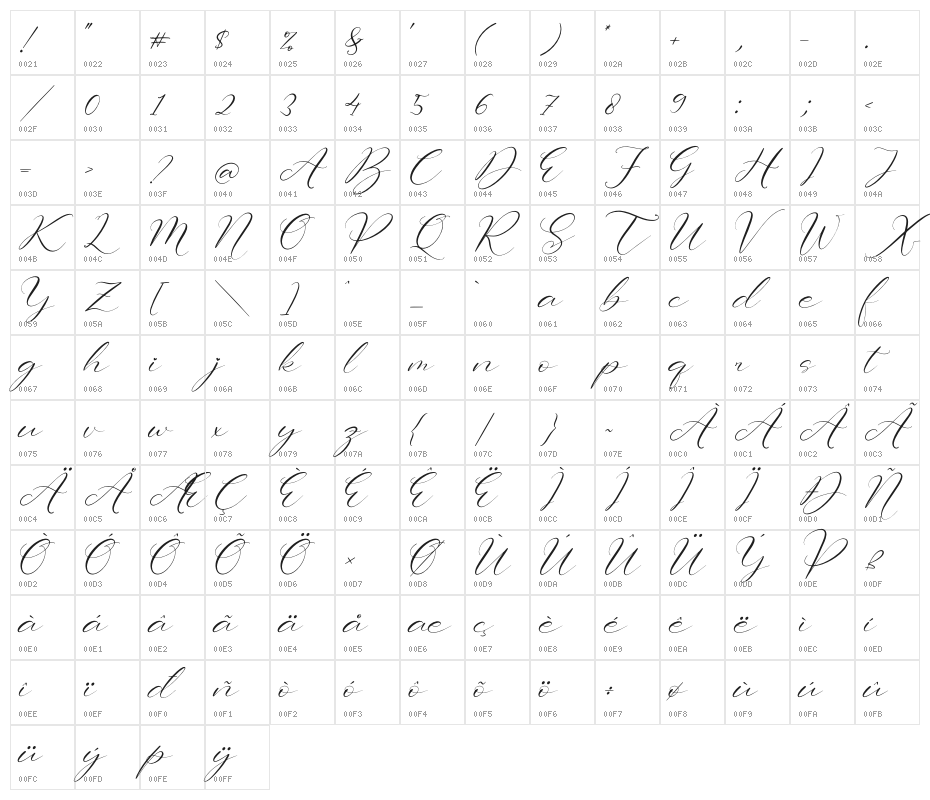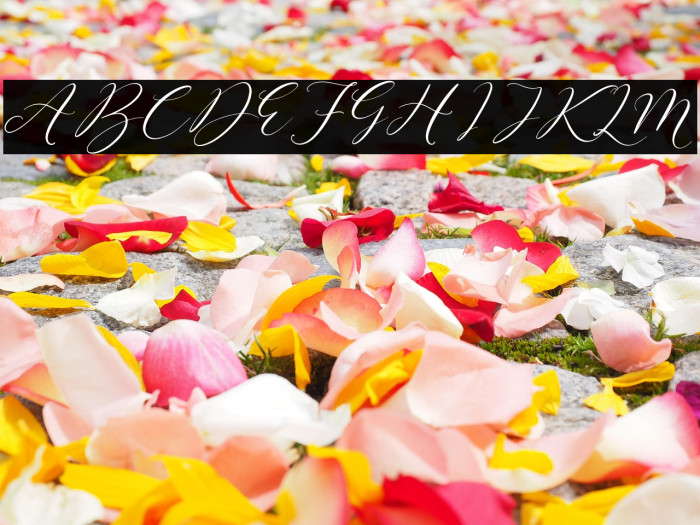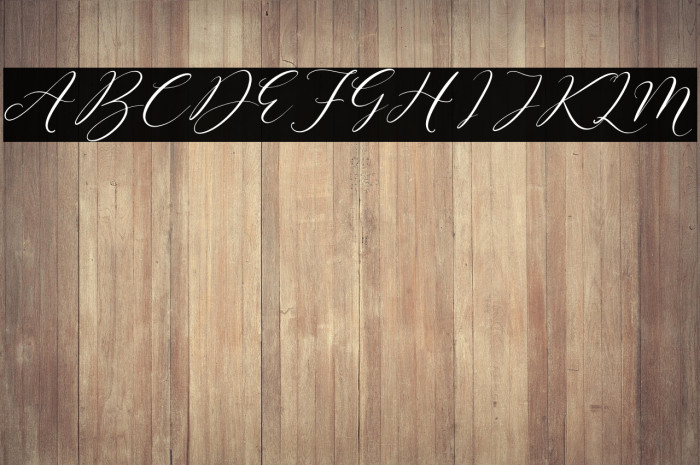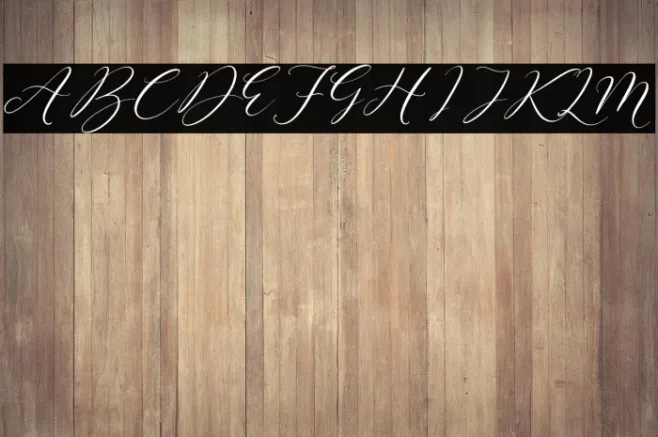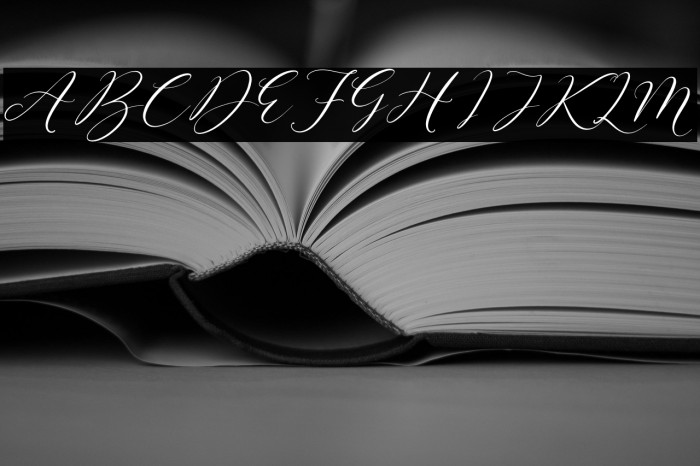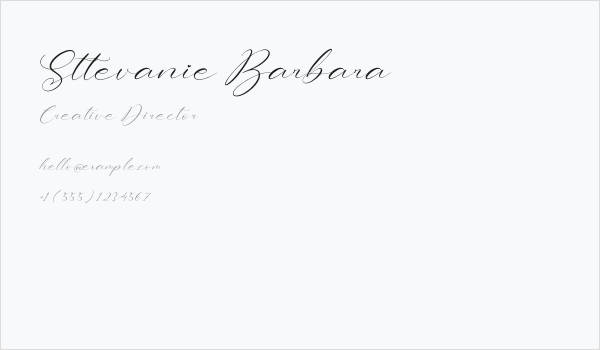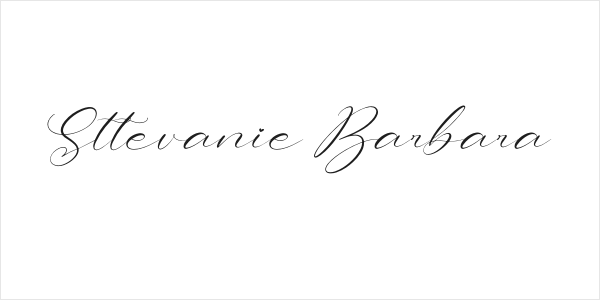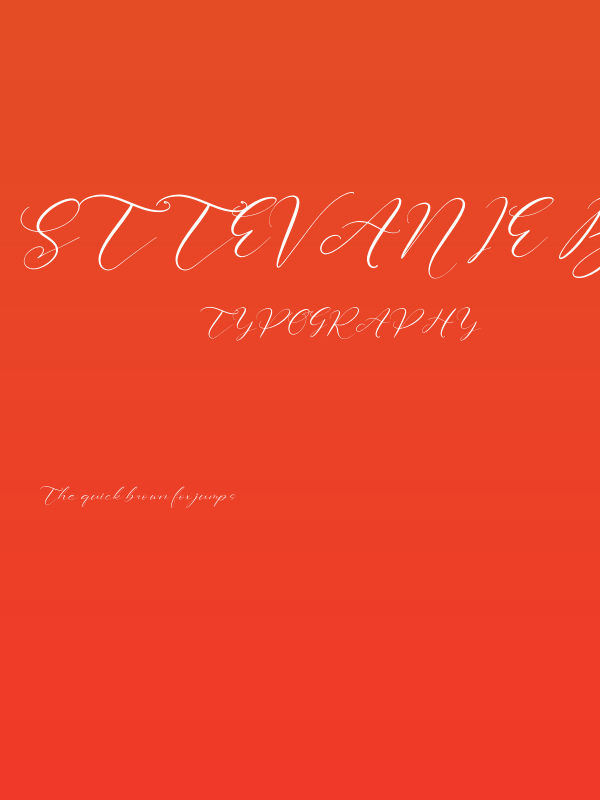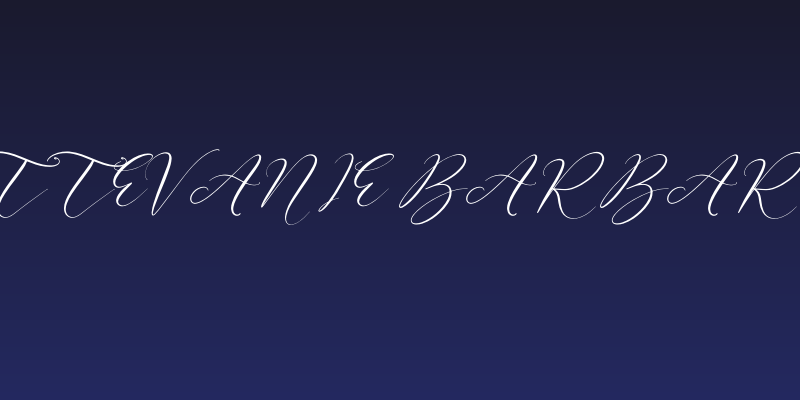
Sttevanie Barbara Font
Sttevanie Barbara Description
This elegant script font features a flowing, cursive style with graceful, sweeping curves and delicate strokes. The uppercase letters are ornate and sophisticated, while the lowercase letters maintain a consistent fluidity, enhancing readability. The numerals are stylish and complement the overall aesthetic, making the font versatile for various applications. Special characters are thoughtfully designed, maintaining the font's cohesive look. The font's refined appearance makes it suitable for formal invitations, branding, and decorative purposes.
| Overall Style | Elegant |
| Use Case | Invitations, Branding, Decorative |
| Proposed Projects | Ideal for wedding invitations, elegant branding, greeting cards, and decorative signage. |